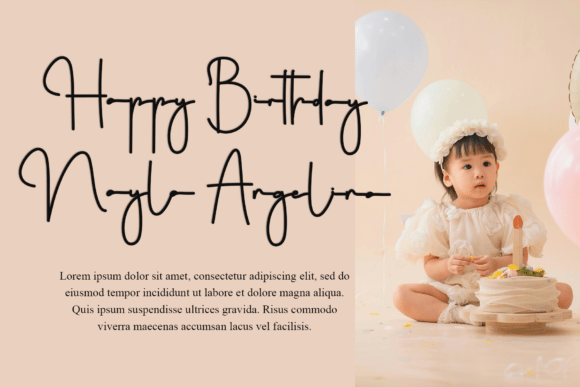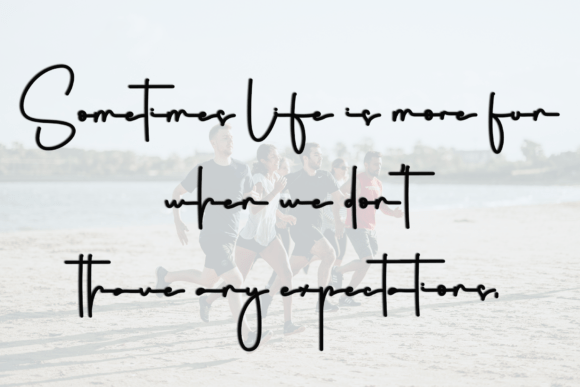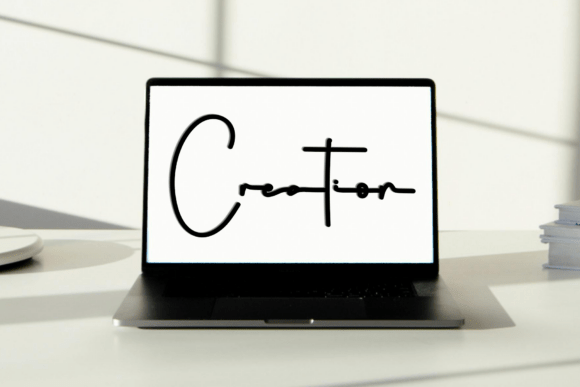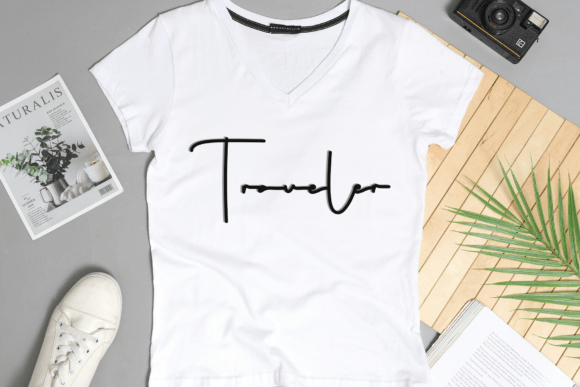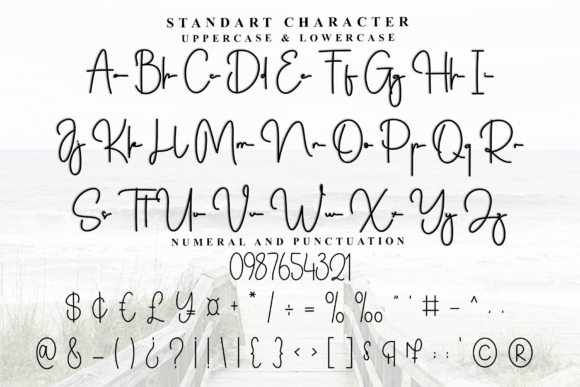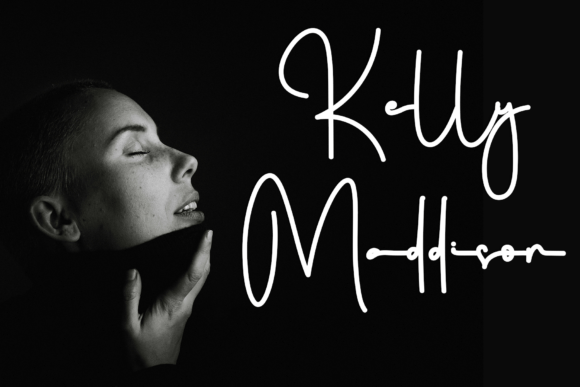
Ginger Bread Font: The Sweetest Addition to Your Design Projects
Are you tired of using the same old fonts in your design projects? Look no further than the Ginger Bread Font, a beautiful and eye-catching typeface that is sure to add a touch of warmth and personality to your creations. Designed with a soft, unique touch, this font is perfect for designers, crafters, and artists looking to add a little something special to their work.
A Font with a Special Character
The Ginger Bread Font is characterized by its distinctive strokes, which give it a special character that sets it apart from other fonts. Its unique design makes it meaningful and versatile, perfect for use in a wide range of design projects, from crafts and DIY projects to professional design work. Whether you’re creating a logo, a brochure, or a social media graphic, the Ginger Bread Font is sure to make your design stand out.
With its varied characters and natural font style, the Ginger Bread Font is perfect for use in a wide range of design projects and crafts. Its unique design makes it ideal for use in:
- Brochures and flyers
- Crafts and DIY projects, such as scrapbooking and card making
- Artistic and creative projects, such as illustrations and paintings
Enhance Your Designs with Ginger Bread Font
The Ginger Bread Font is designed to enhance your designs and make them more appealing to your audience. Its unique and eye-catching design makes it perfect for use in a wide range of artistic and creative fields, including:
- Graphic design
- Illustration and painting
- Scrapbooking and card making
Why Choose Ginger Bread Font?
So why choose the Ginger Bread Font for your design projects? Here are just a few reasons:
- Unique and eye-catching design
- Versatile and compatible with a wide range of applications and platforms
- Perfect for use in a wide range of design projects and crafts
- Enhances designs and makes them more appealing to audiences
In conclusion, the Ginger Bread Font is a beautiful and eye-catching typeface that is sure to add a touch of warmth and personality to your design projects. Its unique design, versatility, and compatibility make it perfect for use in a wide range of design projects and crafts. Whether you’re a designer, crafter, or artist, the Ginger Bread Font is sure to become a favorite in your design arsenal.